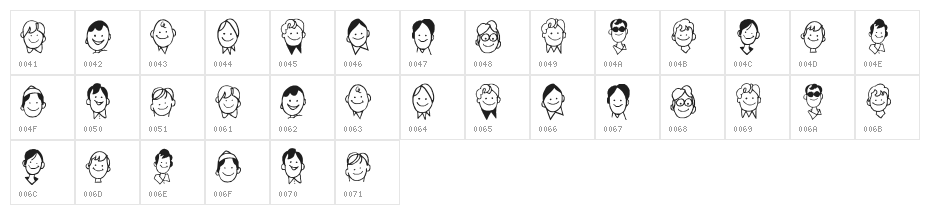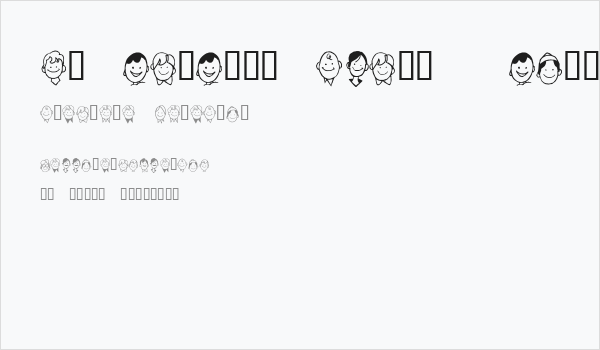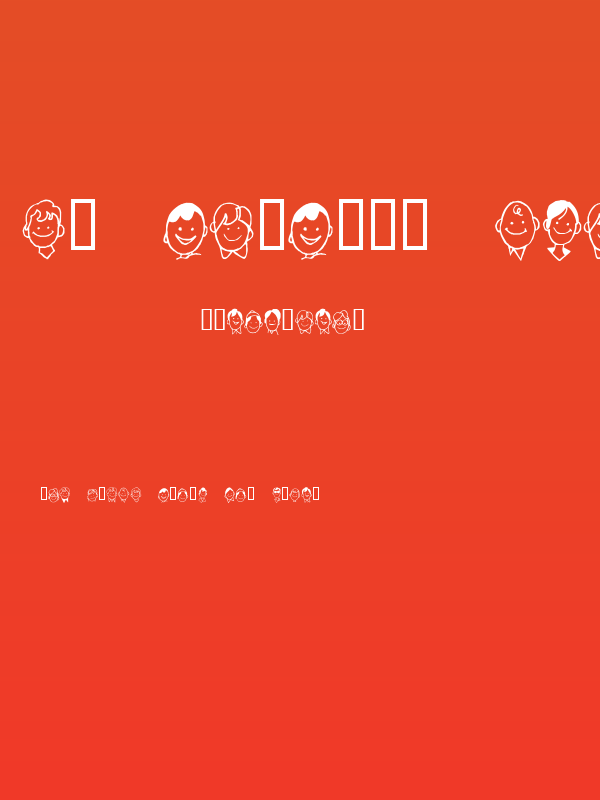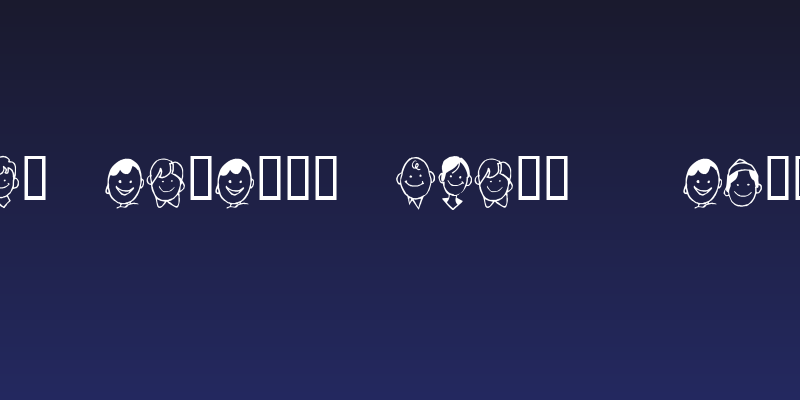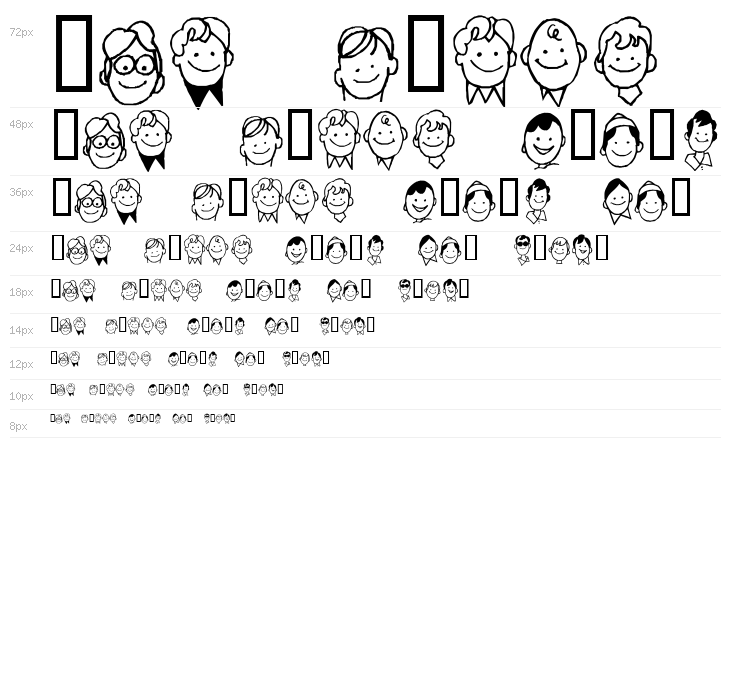
KR Barb's Class Boys Font
KR Barb's Class Boys Description
| Overall Style | Playful, Whimsical, Childlike |
| Use Case | Decorative elements, icons, educational materials |
| Proposed Projects | ChildrenΓ’β¬β’s books, classroom materials, educational posters, party invitations, scrapbooking, playful branding. |